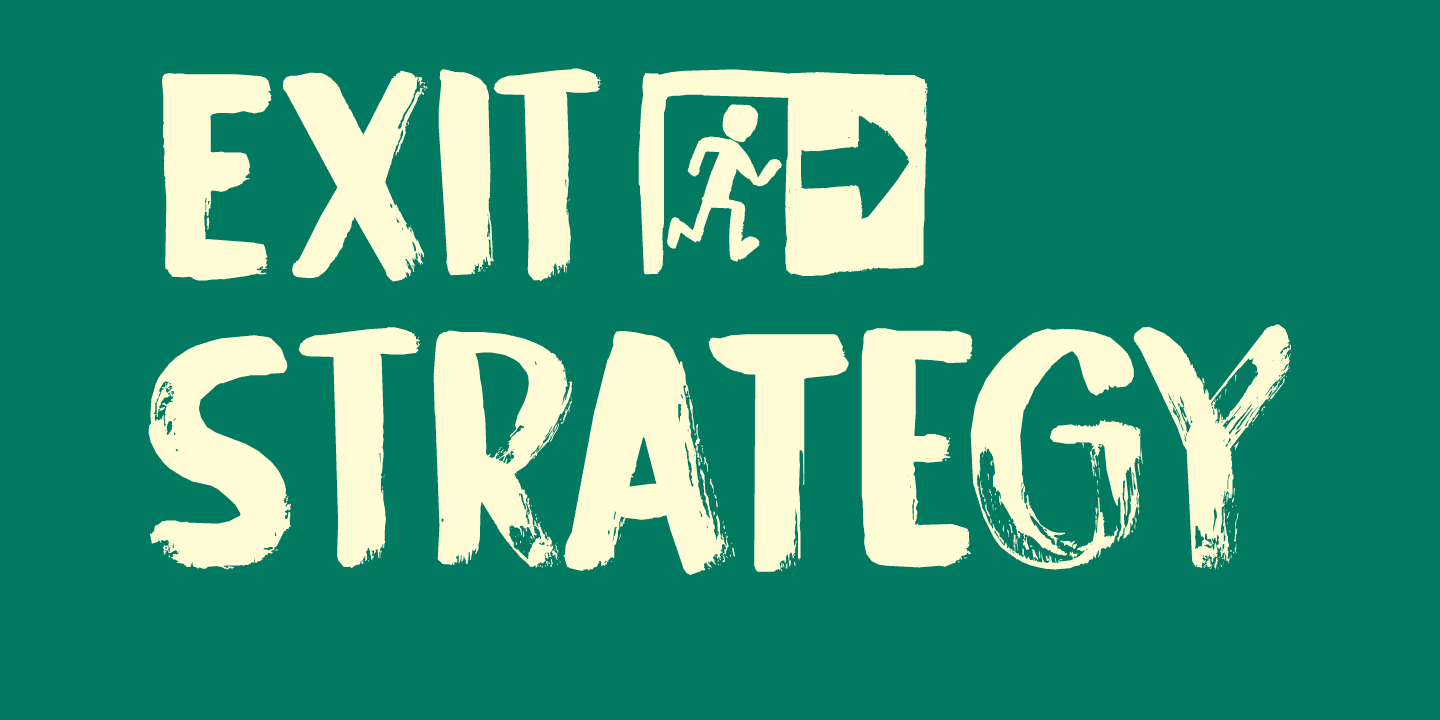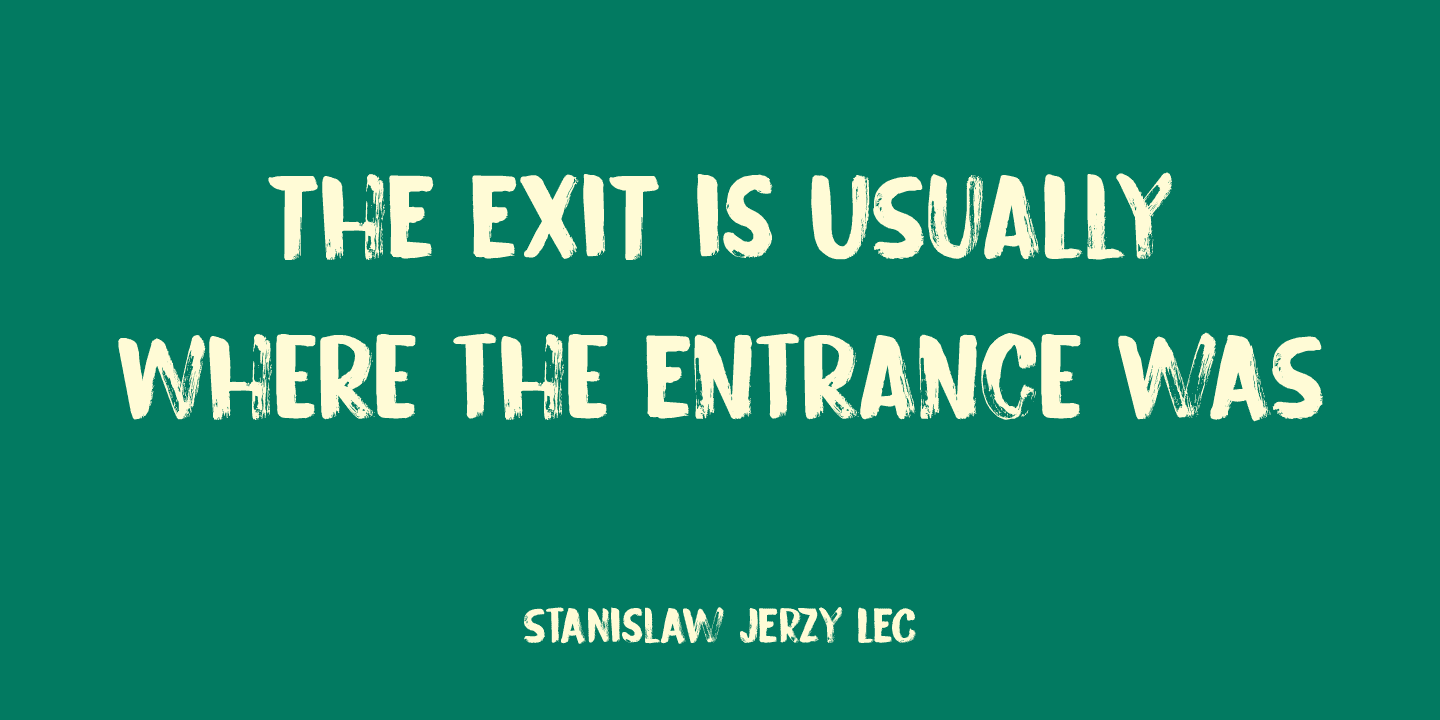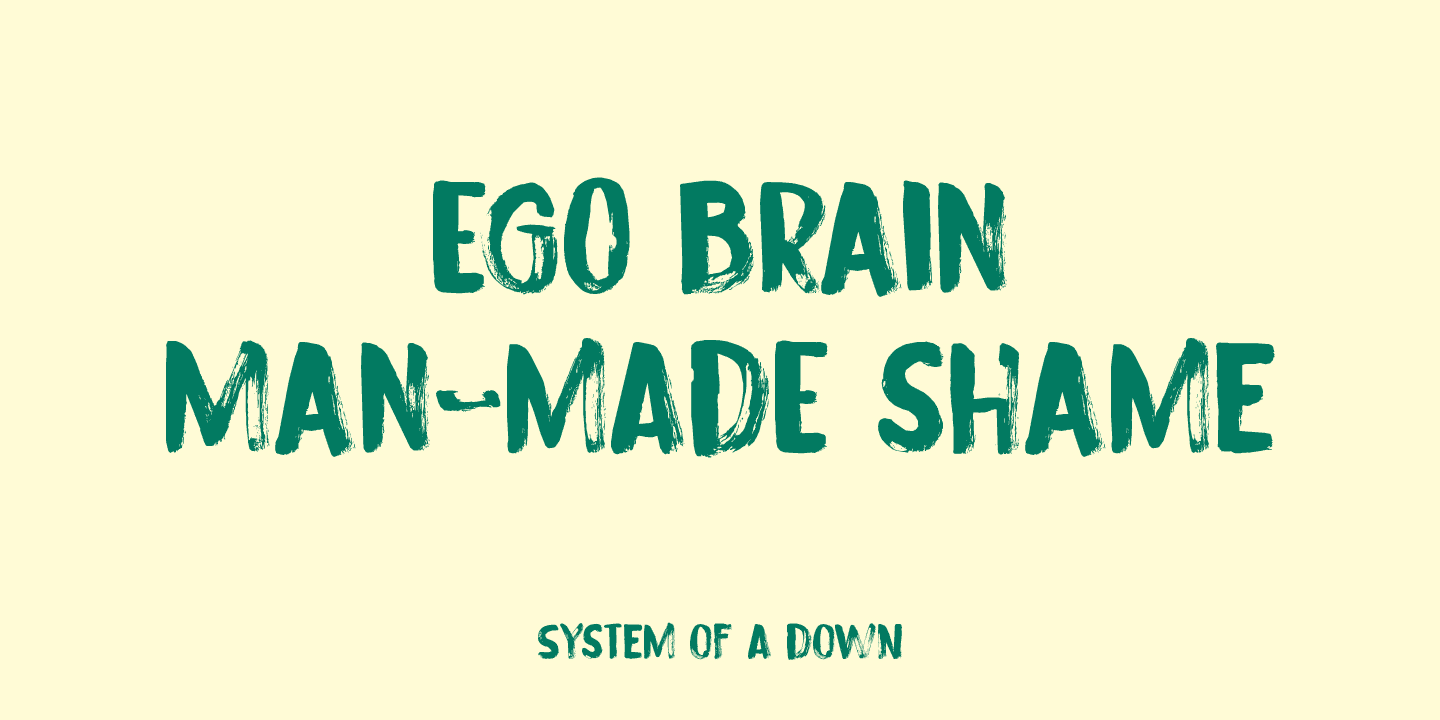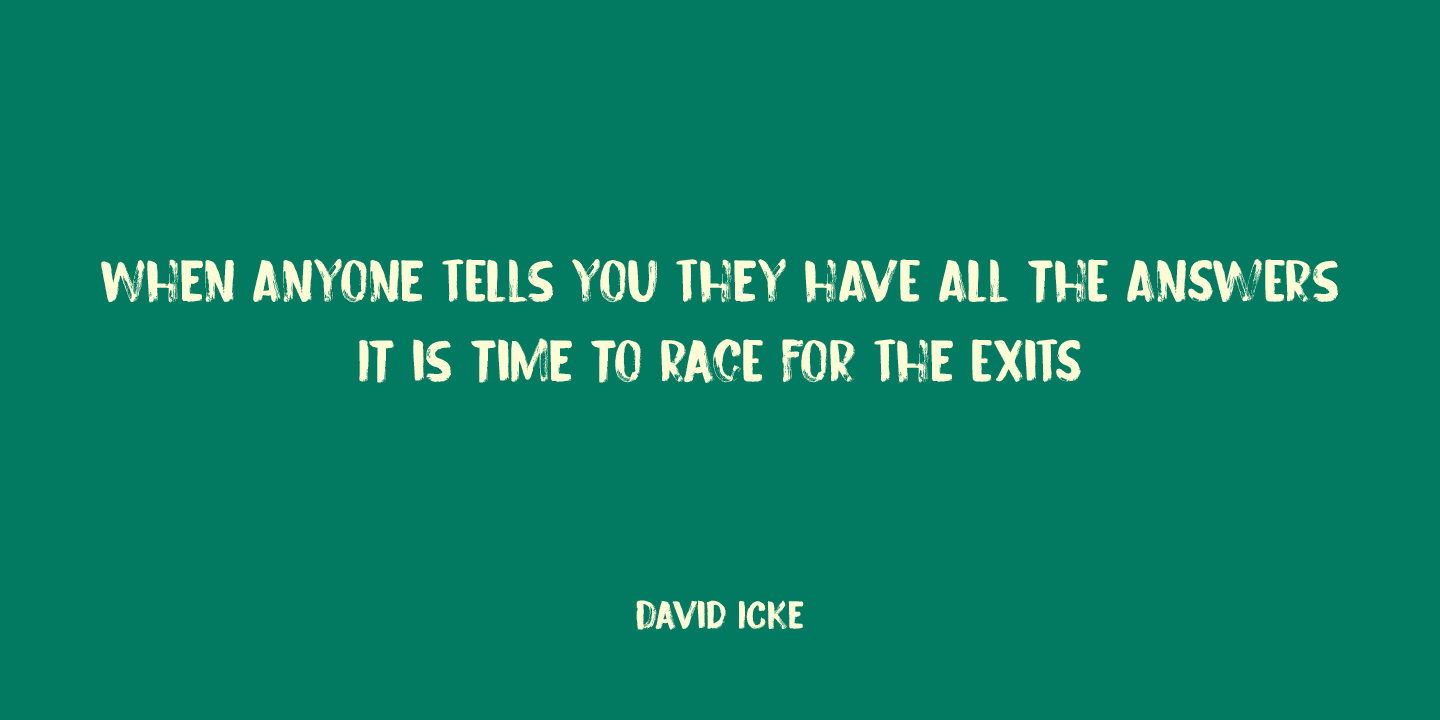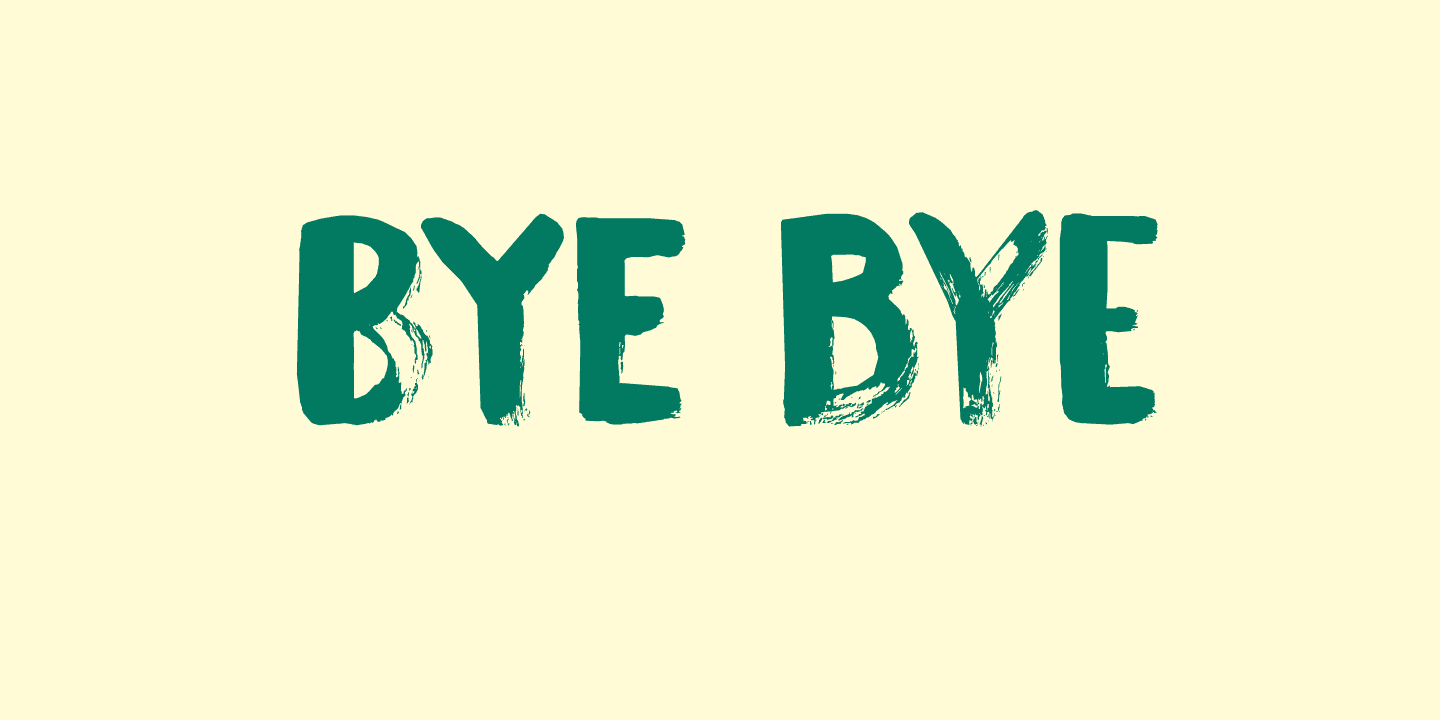
Exit Strategy Family (2 fonts)
Use this font to highlight all that is important, stick it on posters, slap it on book covers - it will definitely do the trick!